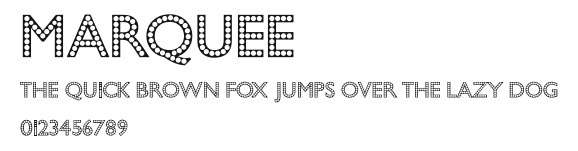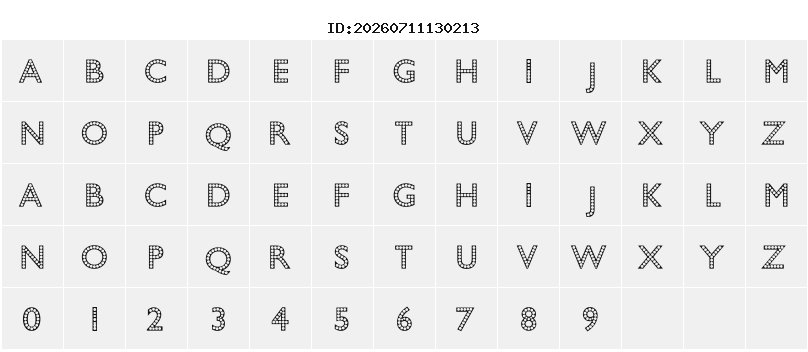
• Font Name: Marquee
• Full Font Name: Marquee
About Marquee.ttf
Marquee.ttf is a modern, elegant sans-serif font designed for ultimate readability and visual harmony. Perfect for branding, headlines, web design, and print materials.